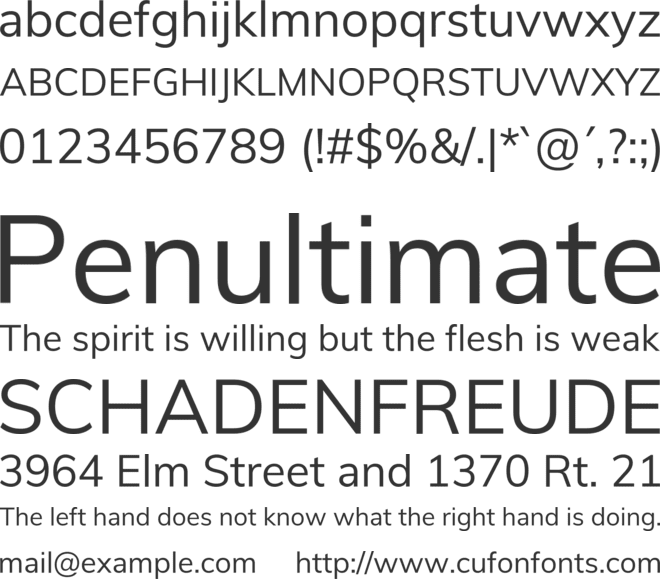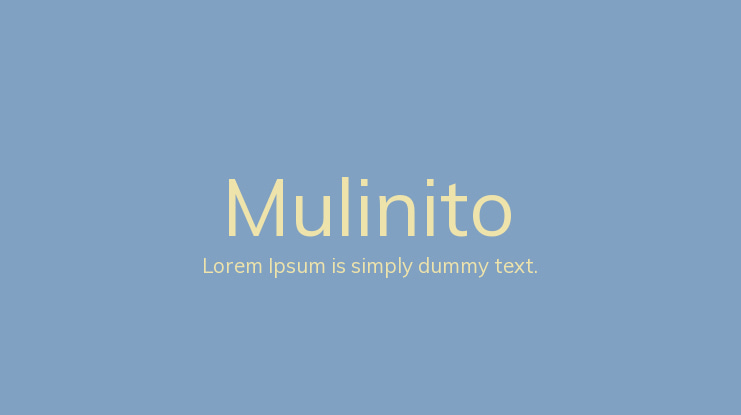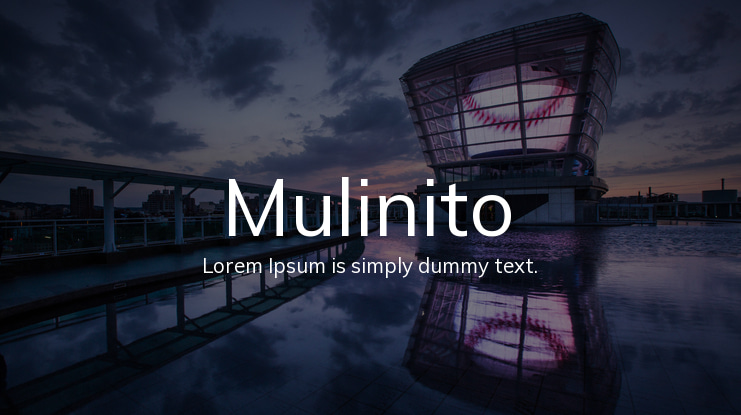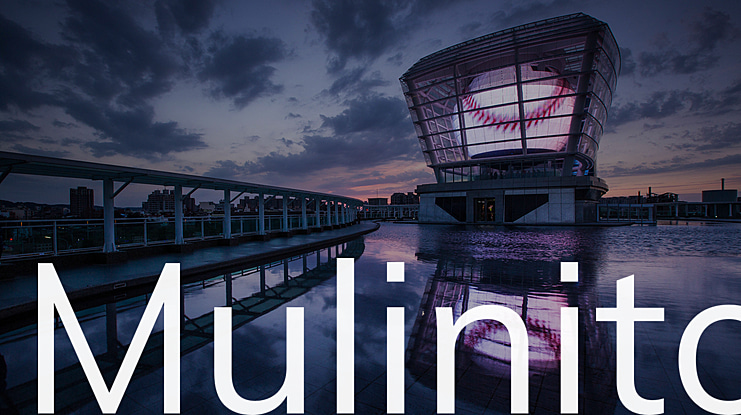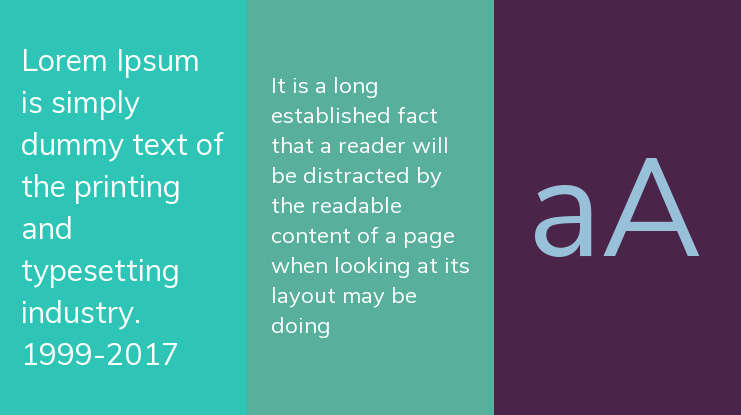
Mulinito Font Family
Vernon Adams
Mulinito is a sans-serif developed from Muli and Nunito Sans fonts. Changes are double-storey 'a' and re-worked characters' heights.